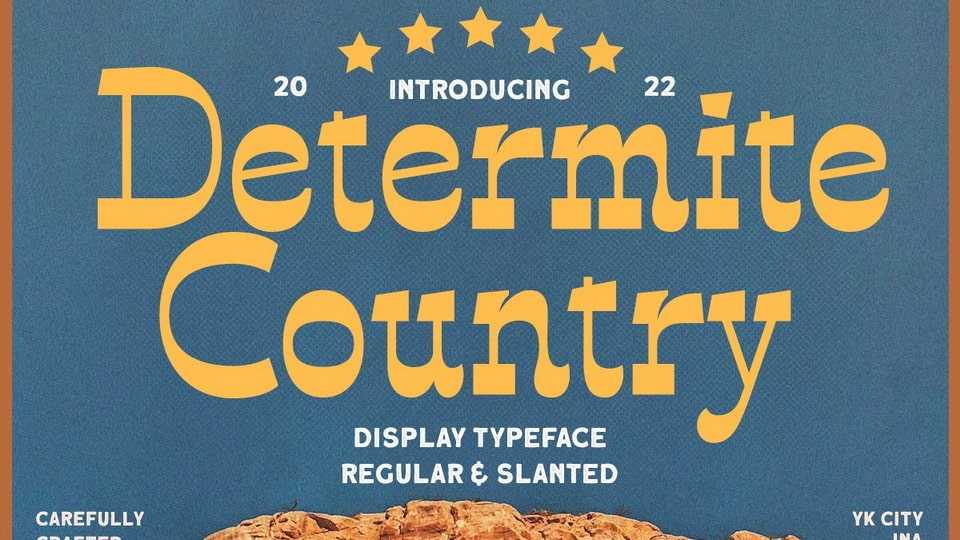
Download Determite font, a western-style display typeface. The playful reverse contrast makes Determite font look different and stand out from the crowd.